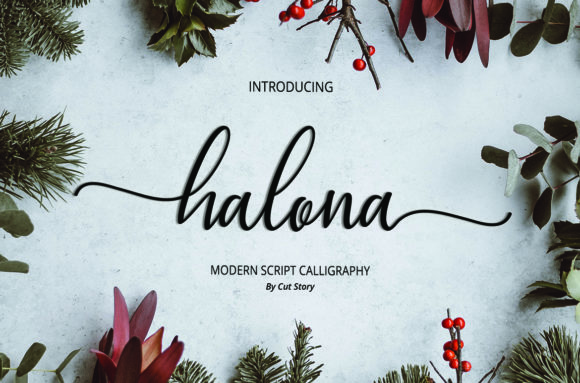
Introducing Halona Font – A Handwritten Masterpiece for Your Creative Expression
In the realm of digital artistry, Halona Font emerges as a radiant gem, captivating the hearts of wordsmiths and designers alike. This breathtaking script, crafted with meticulous care by Cut Story, is a testament to the power of imagination and boundless creativity.
With its graceful curves and delicate strokes, Halona Font possesses an innate charm that elevates your words to new heights. Its enchanting swashes and ligatures dance across the page like whispers of a forgotten era, adding a touch of elegance and sophistication to your designs.
Whether you're a seasoned designer seeking to elevate your projects or an aspiring artist yearning for a font that truly reflects your unique style, Halona Font is your muse. Its versatility knows no bounds, effortlessly adapting to a myriad of creative endeavors.
Picture the allure of a wedding invitation adorned with Halona's elegant script, promising a celebration filled with love and joy. Envision the charm of personalized greeting cards, each one carrying a heartfelt message written in Halona's graceful hand.
But Halona's allure extends far beyond the realm of paper. Its striking presence graces social media posts, capturing attention and sparking engagement with its captivating allure. Let your words take center stage, adorned with Halona's timeless beauty.